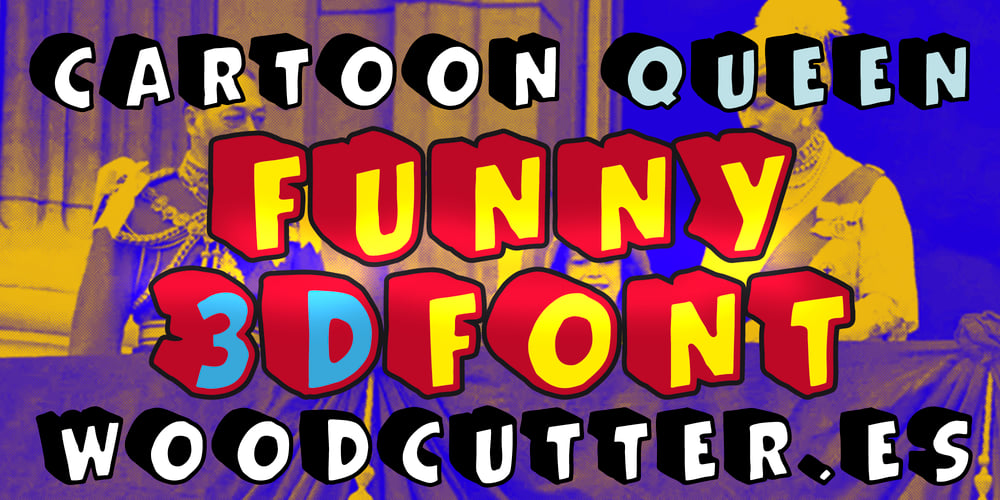
Cartoon Queen Font Family was designed by Jordi Manero and published by Woodcutter. Cartoon Queen contains 1 styles and family package options. “Cartoon Queen” is a three-dimensional font with a black shadow to its left, giving it an informal and playful appearance. Perfect for creative and fun projects, this typeface stands out for its casual style and voluminous design that adds depth and character to any text. With its animated and light-hearted look, “Cartoon Queen” is ideal for comic titles, children’s posters, and any project seeking a cheerful and carefree vibe. Additionally, its three-dimensional design adds a visually appealing touch that will capture the attention of any audience.